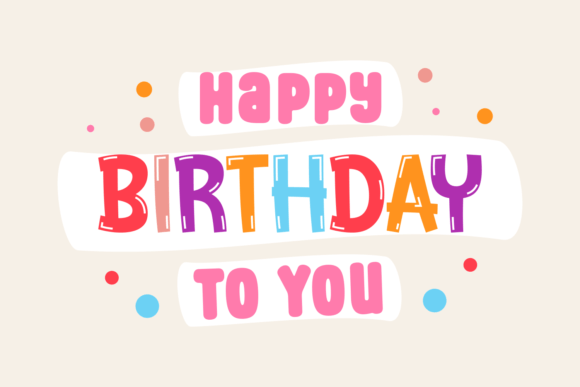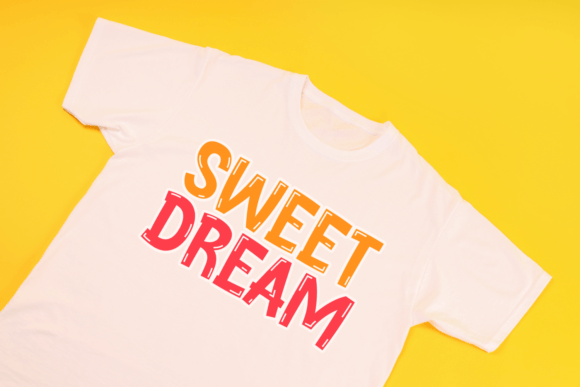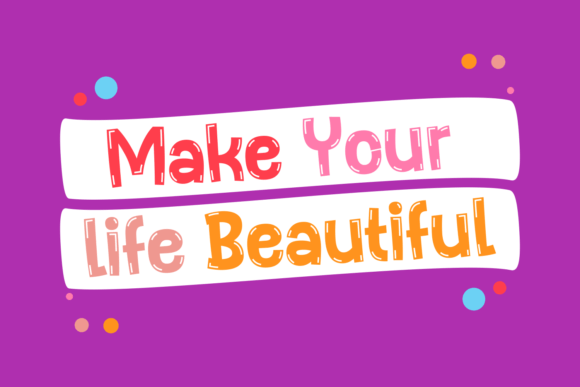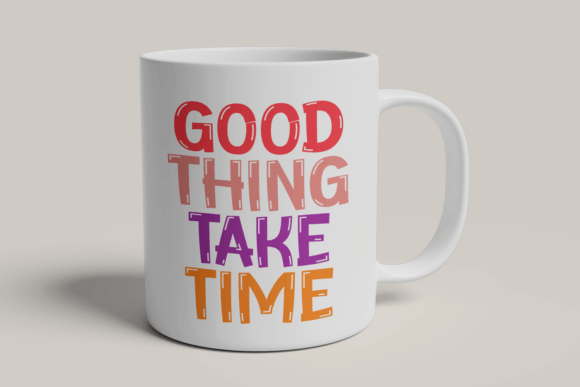
Introducing Destiny Bubble Font: The Fun and Playful Display Font for Kids and School Themes
Are you a designer, crafter, or educator looking for a font that can add a touch of fun and playfulness to your projects? Look no further than Destiny Bubble Font! This uniquely designed display font is perfect for kids or school themes and can be used for a wide range of creative projects. In this article, we’ll explore the features and benefits of Destiny Bubble Font and show you how it can elevate your designs to the next level.
What is Destiny Bubble Font?
Destiny Bubble Font is a display font that is designed to be fun, playful, and engaging. Its unique design makes it perfect for kids or school themes, and it’s ideal for use in a variety of projects, including crafting, restaurant menus, digital designing, presentations, and greeting card making. The font’s playful bubble letters are sure to capture the attention of your audience and add a touch of whimsy to your designs.
Features of Destiny Bubble Font
So, what makes Destiny Bubble Font so special? Here are just a few of its key features:
- Unique Design: Destiny Bubble Font has a one-of-a-kind design that sets it apart from other fonts. Its bubble letters are fun, playful, and engaging, making it perfect for kids or school themes.
- Versatility: This font is incredibly versatile and can be used for a wide range of projects, from crafting and digital designing to presentations and greeting card making.
Benefits of Using Destiny Bubble Font
So, why should you use Destiny Bubble Font in your projects? Here are just a few benefits:
- Adds a Touch of Fun and Playfulness: Destiny Bubble Font adds a touch of fun and playfulness to your designs, making them more engaging and attention-grabbing.
- Perfect for Kids or School Themes: This font is perfect for kids or school themes, making it ideal for use in educational materials, children’s books, and other projects.
- Increases Creativity: Destiny Bubble Font can help increase your creativity and inspire new ideas. Its unique design and playful bubble letters are sure to spark your imagination and help you come up with fresh and innovative designs.
Project Ideas Using Destiny Bubble Font
Destiny Bubble Font is perfect for a wide range of projects. Here are a few ideas to get you started:
- Crafting: Use Destiny Bubble Font to add a touch of fun and playfulness to your craft projects, such as scrapbooking, card making, and DIY home decor.
- Digital Designing: Use the font to create engaging and attention-grabbing digital designs, such as social media graphics, blog posts, and email newsletters.
- Presentations: Use Destiny Bubble Font to add a touch of fun and playfulness to your presentations, making them more engaging and memorable.
- Greeting Card Making: Use the font to create fun and playful greeting cards for kids or adults.
- Restaurant Menus: Use Destiny Bubble Font to create fun and playful restaurant menus that kids will love.
| Font Name | Destiny Bubble Font |
| Author | Andal (7NTypes) |
In conclusion, Destiny Bubble Font is a fun and playful display font that’s perfect for kids or school themes. Its unique design and versatility make it ideal for use in a wide range of projects, from crafting and digital designing to presentations and greeting card making. With its ease of use and benefits, Destiny Bubble Font is sure to elevate your designs to the next level. So why wait? Download Destiny Bubble Font today and start creating fun and playful designs that will capture the attention of your audience!